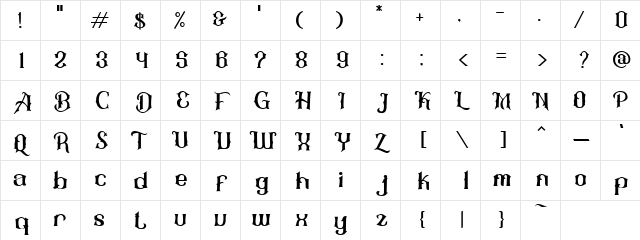
Bulgani Decorative
| Style | Decorative |
| Foundry | faras dina |
| Designer | Faras Dina |
Design Context for Bulgani Typeface
Bulgani brings ornamental detail and strong personality to headlines and identities, where visual impact matters more than quiet functionality.
Font Pairing: Pair with a clean neutral sans-serif for body copy to let Bulgani's character lead without overwhelming the composition.
Pro Tip: Use Bulgani exclusively at display sizes — it was designed to be seen, not read at length. Let a neutral companion handle body copy.